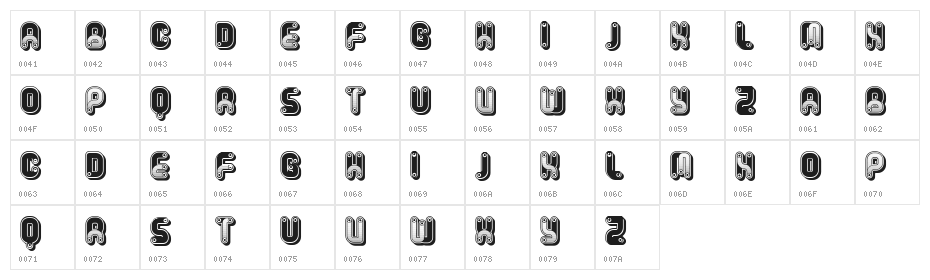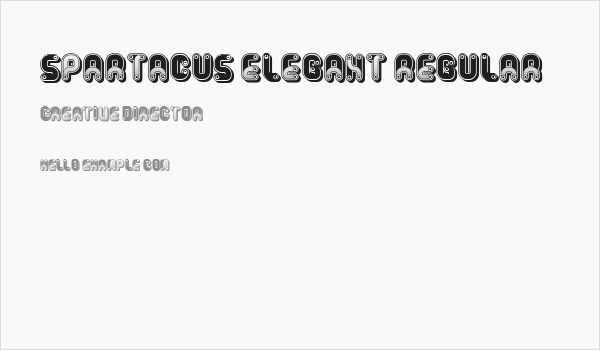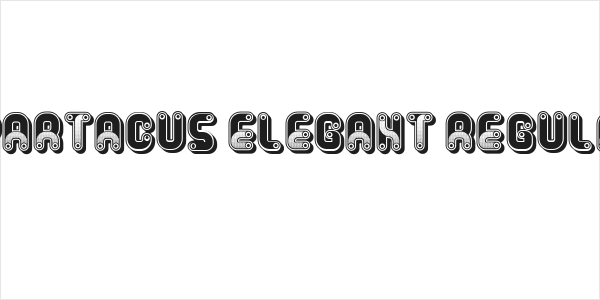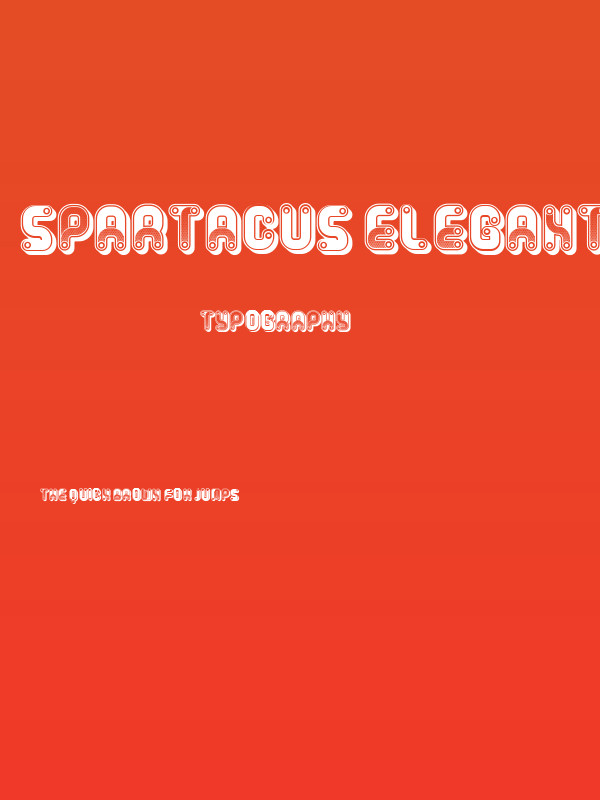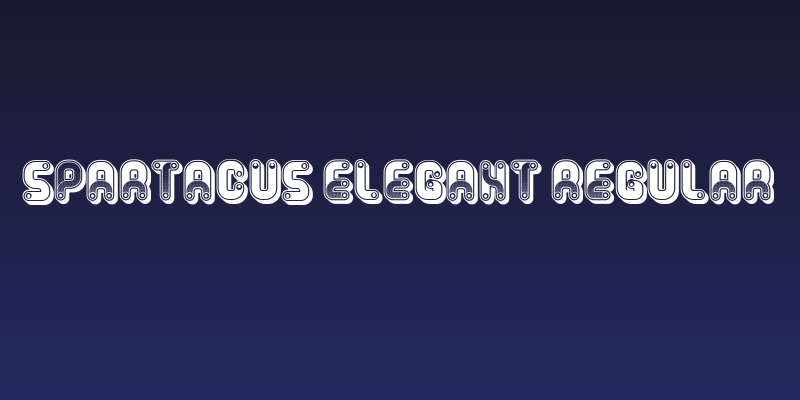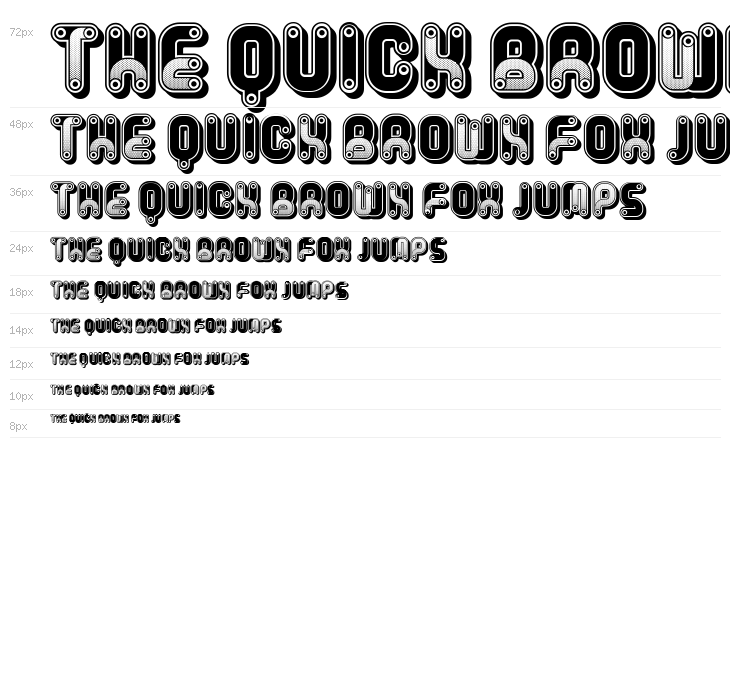
Spartacus Elegant Regular Font
Spartacus Elegant Regular Description
This font features a bold and decorative style with intricate detailing within each character. The letters are designed with a three-dimensional appearance, incorporating a combination of solid and patterned fills that create a sense of depth and texture. The use of circular and linear elements within the characters adds a unique and artistic flair, making it stand out as a display typeface. The overall design is both modern and playful, suitable for projects that require a strong visual impact.
| Proposed Projects | Ideal for posters, logos, branding, and any design work that requires a striking and artistic typeface. |